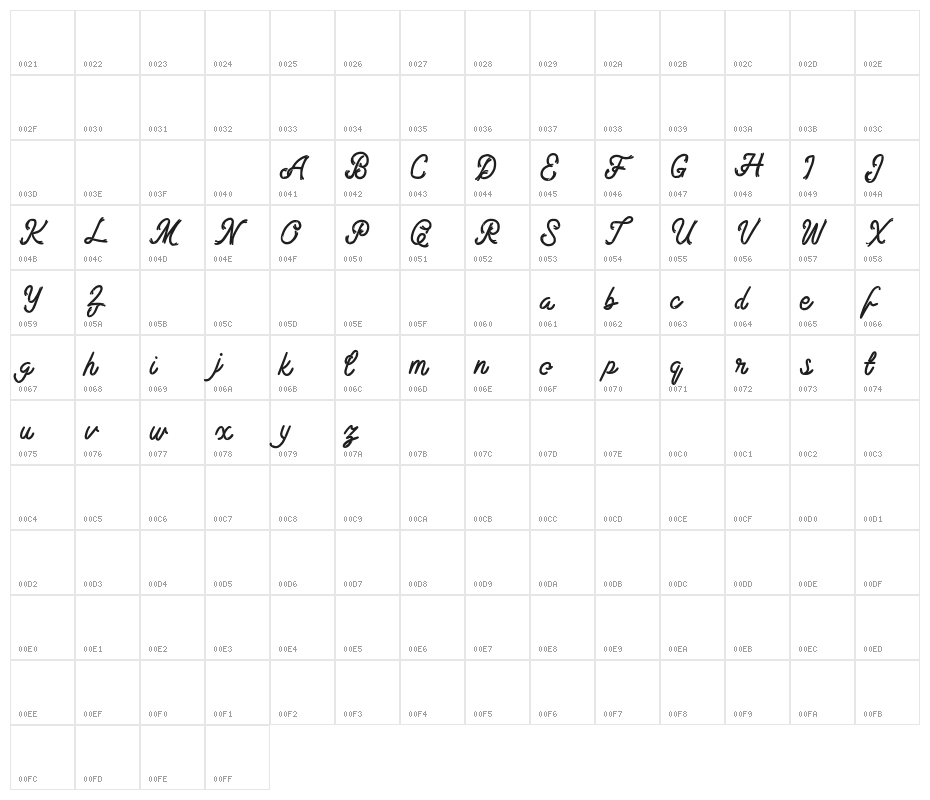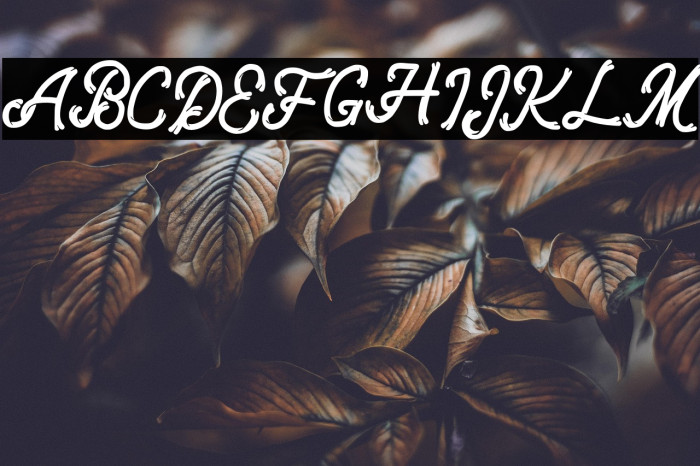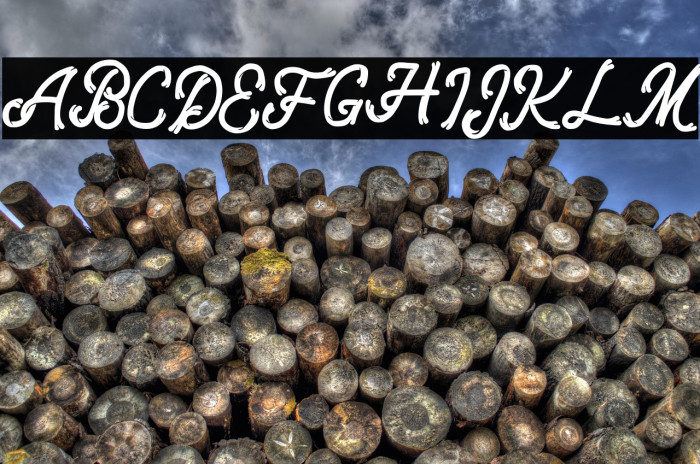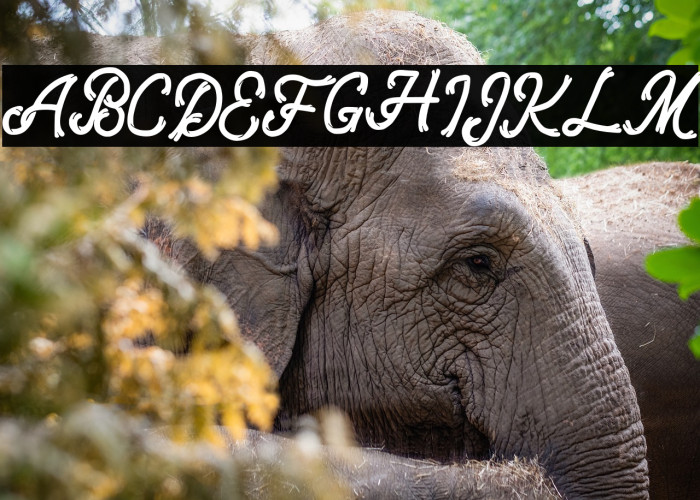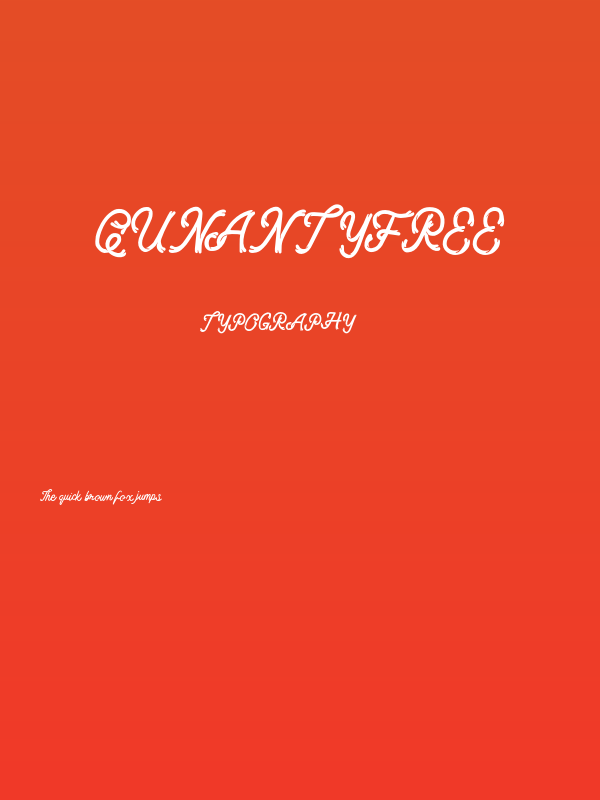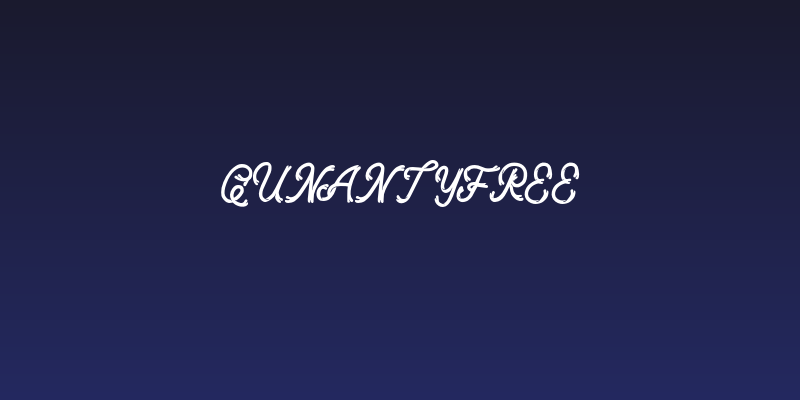
QunantyFREE Font
QunantyFREE Description
This font features a decorative and flowing script style with elegant curves and flourishes. The uppercase letters are bold and ornate, with intricate loops and swirls that give a sense of movement and grace. The lowercase letters maintain the same decorative style, with a slightly more compact form, allowing for a smooth and continuous flow in text. The numbers and special characters are designed to match the overall aesthetic, ensuring a cohesive look across all characters. This font is ideal for projects that require a touch of elegance and sophistication.